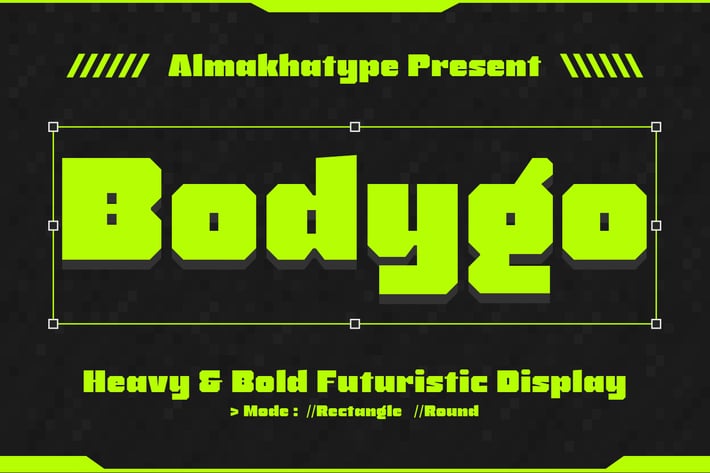
Bodygo - Boxy Display Font
Introducing Bodygo, a bold and heavy display typeface available in two styles: rectangle and round. This font draws inspiration from the worlds of sports, futuristic aesthetics, and sci-fi themes, embodying the spirit and boldness of these genres.
Despite its distinct style, Bodygo’s versatility shines through with its concise geometry, making it suitable for various styles and genres. This font is specifically designed for eye-catching headlines that demand attention.
Whether it’s for music album covers, sports events, logo designs, packaging creations, videogame designs, or poster designs, Bodygo is the perfect choice to make your projects stand out. Experience the impact of Bodygo for yourself. We’re confident you’ll fall in love with its bold and dynamic presence.
+ Ligatures glyphs
+ Alternate glyphs
+ International Accent